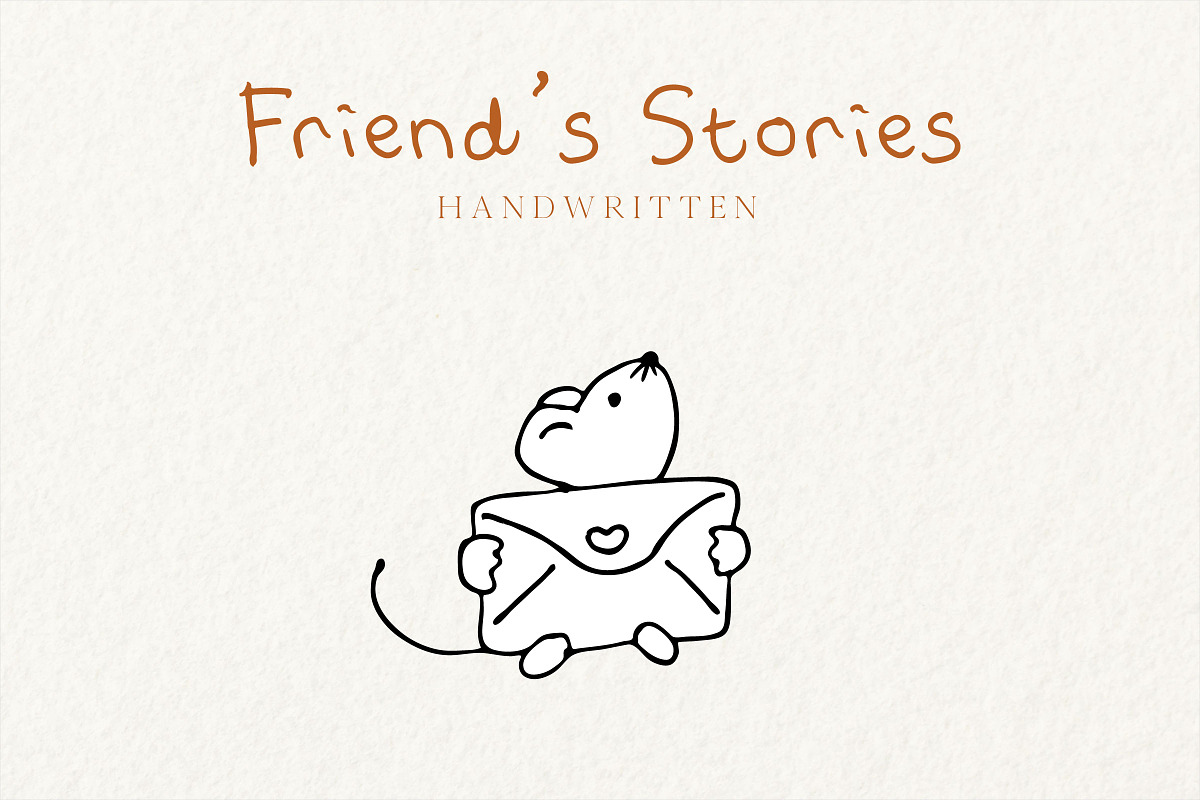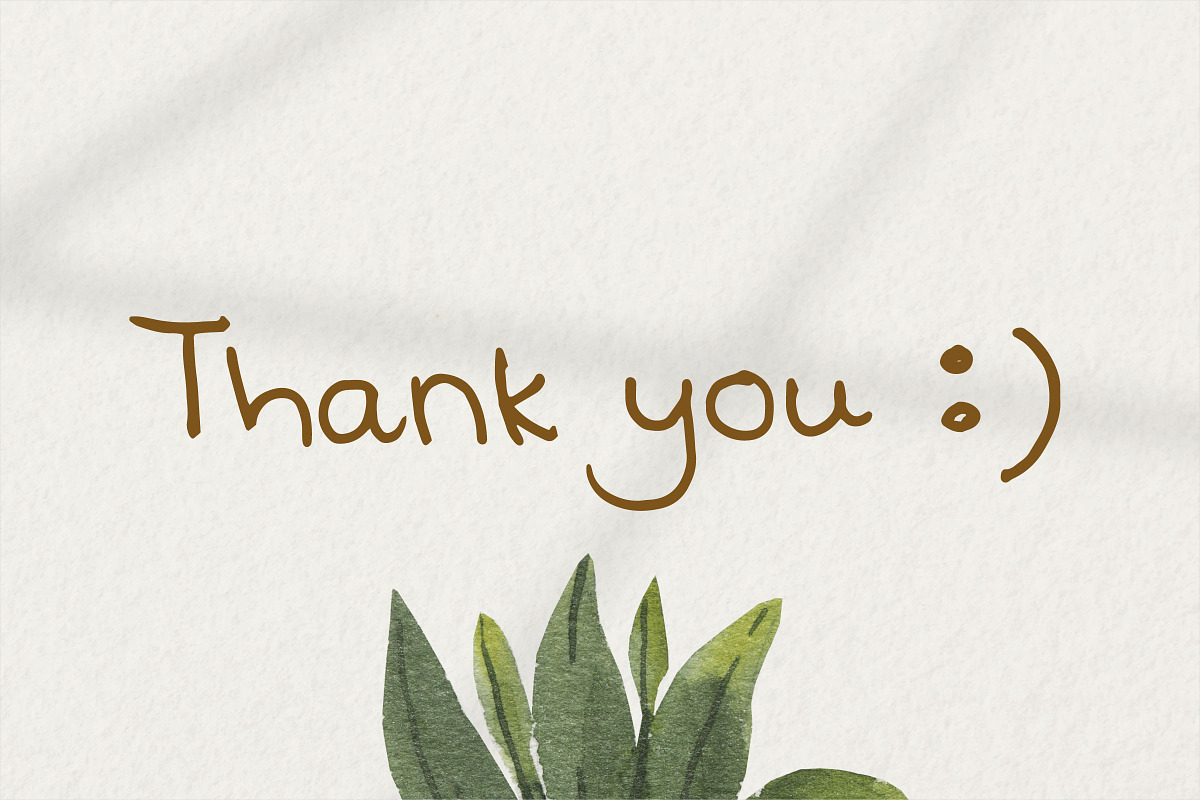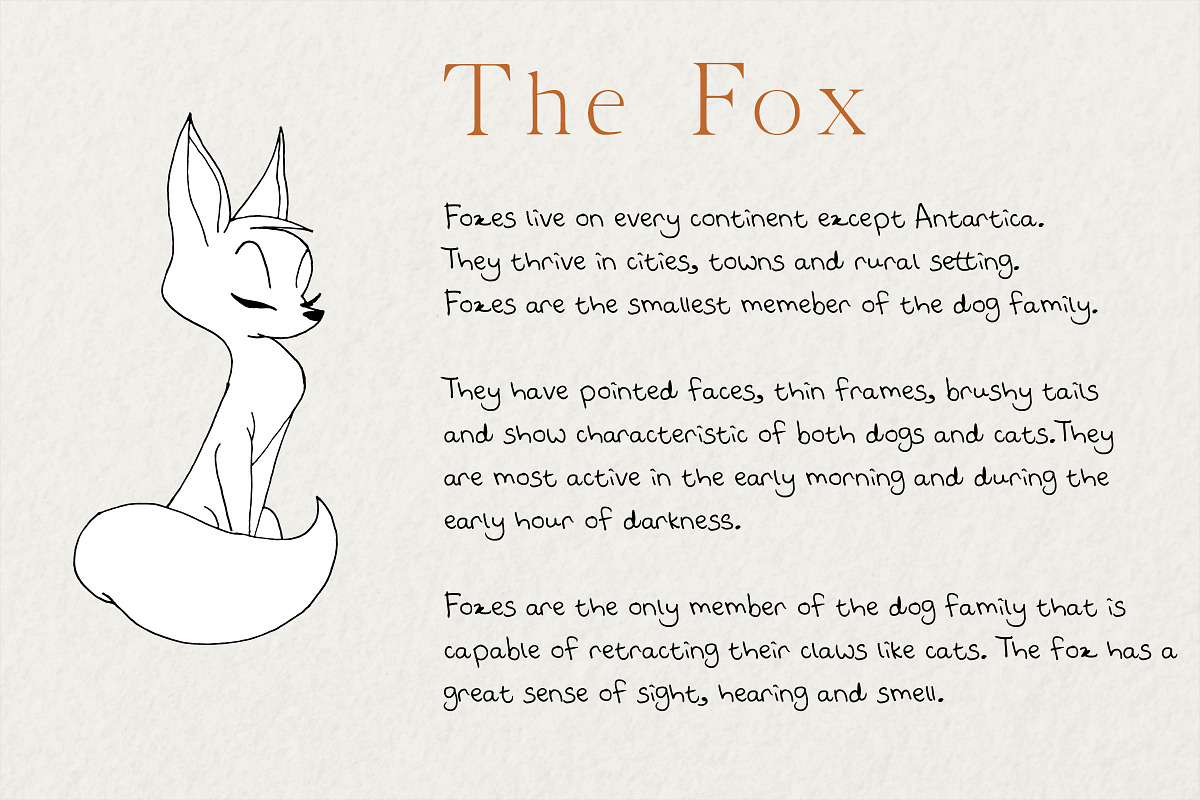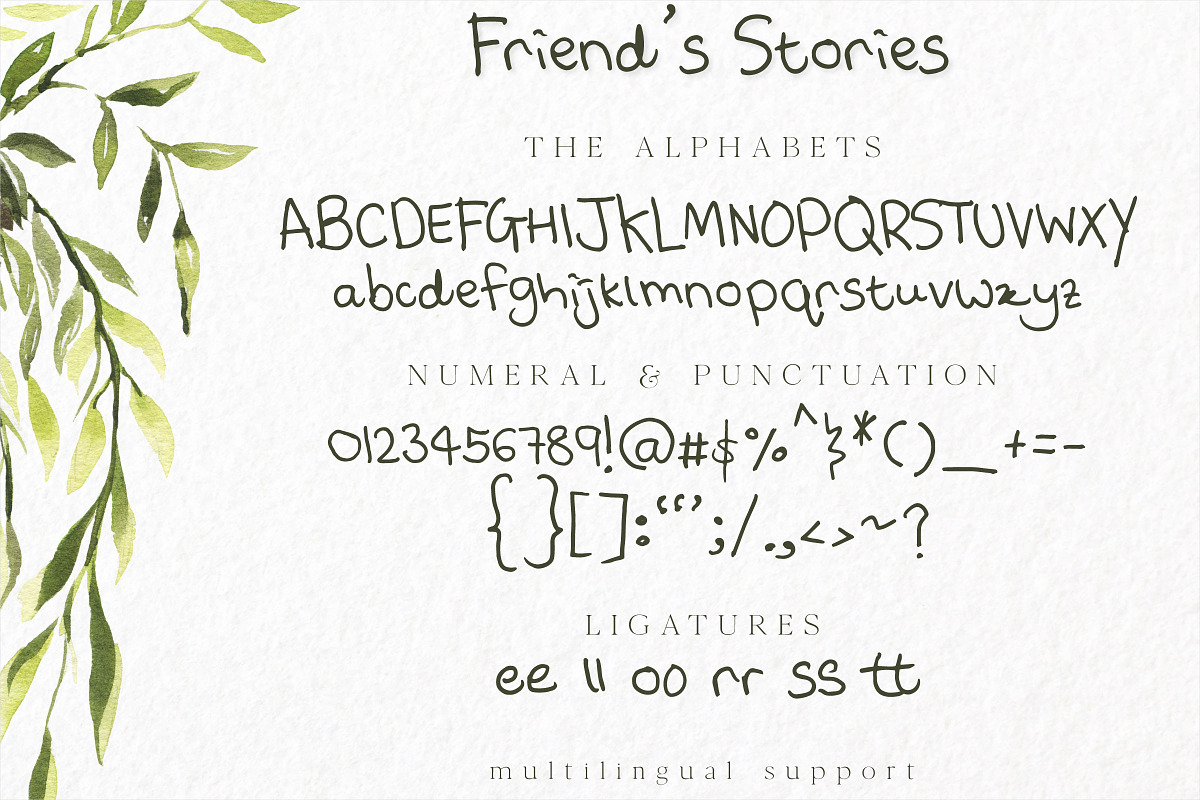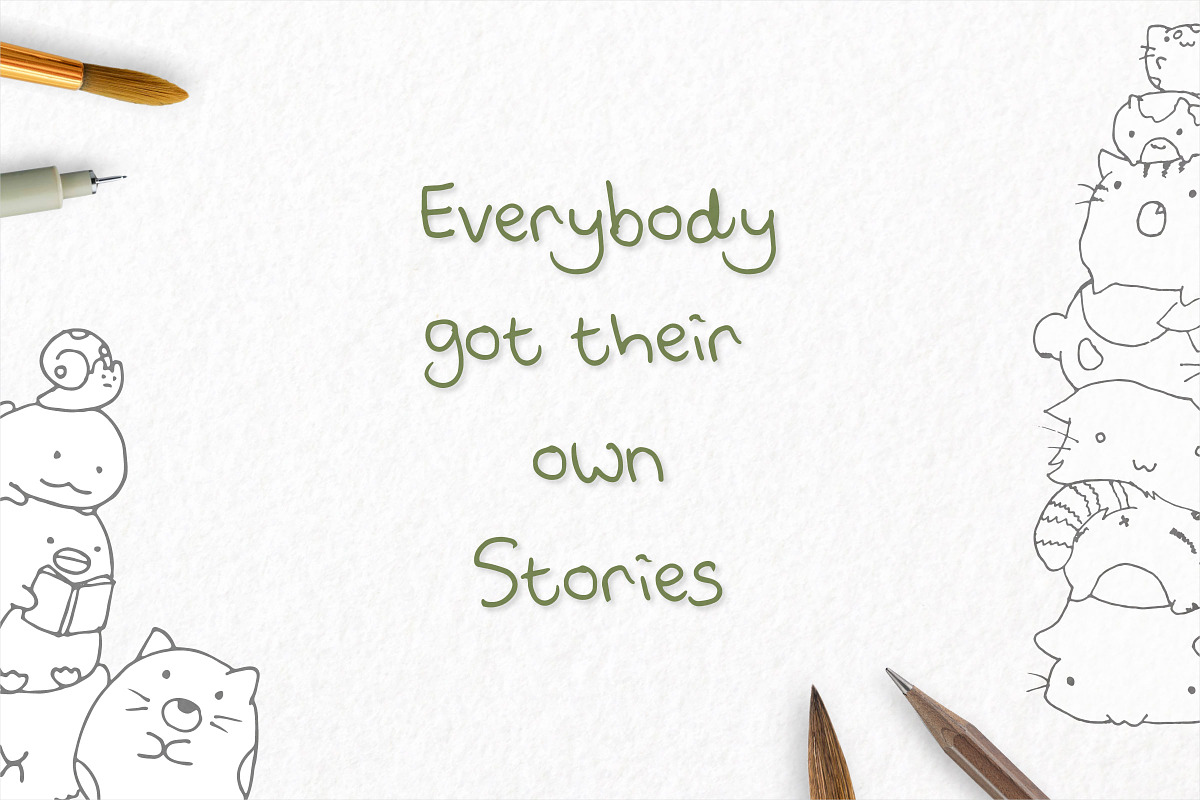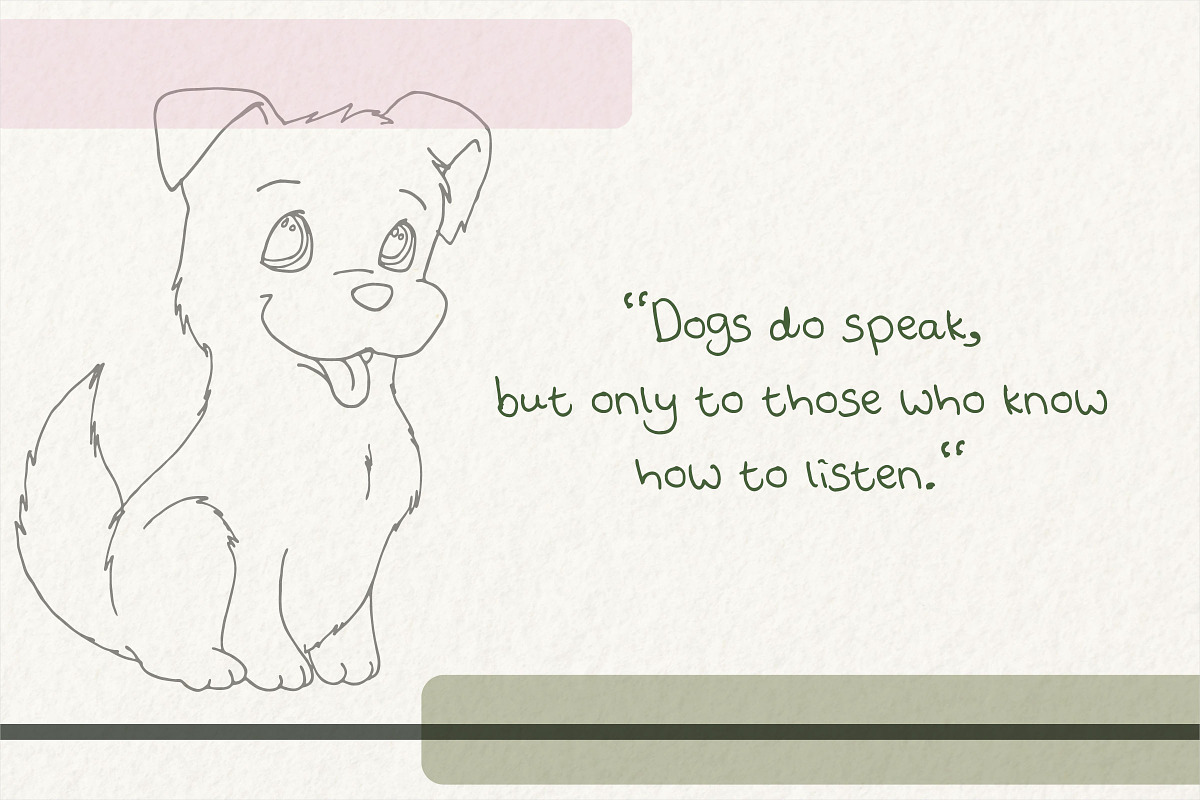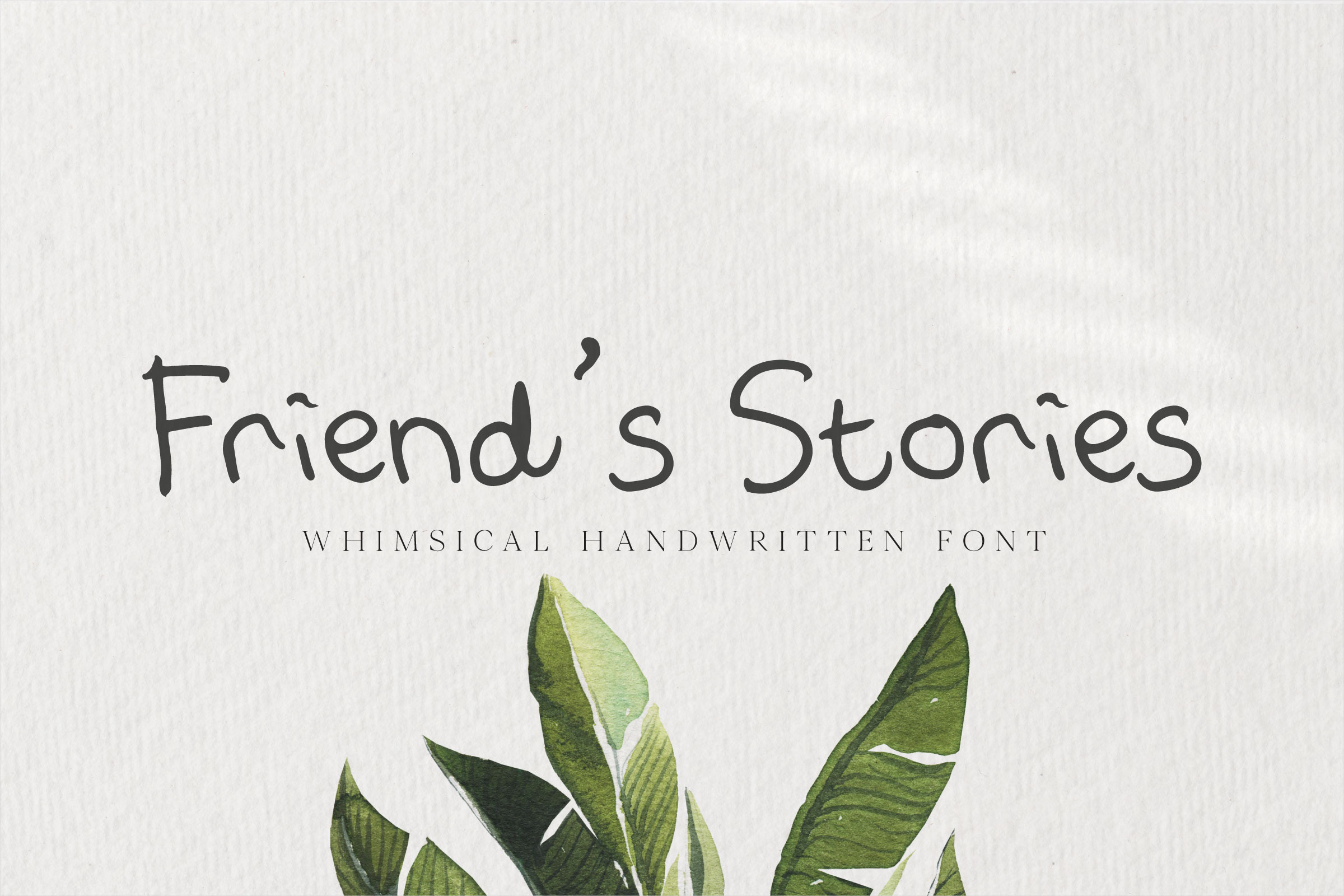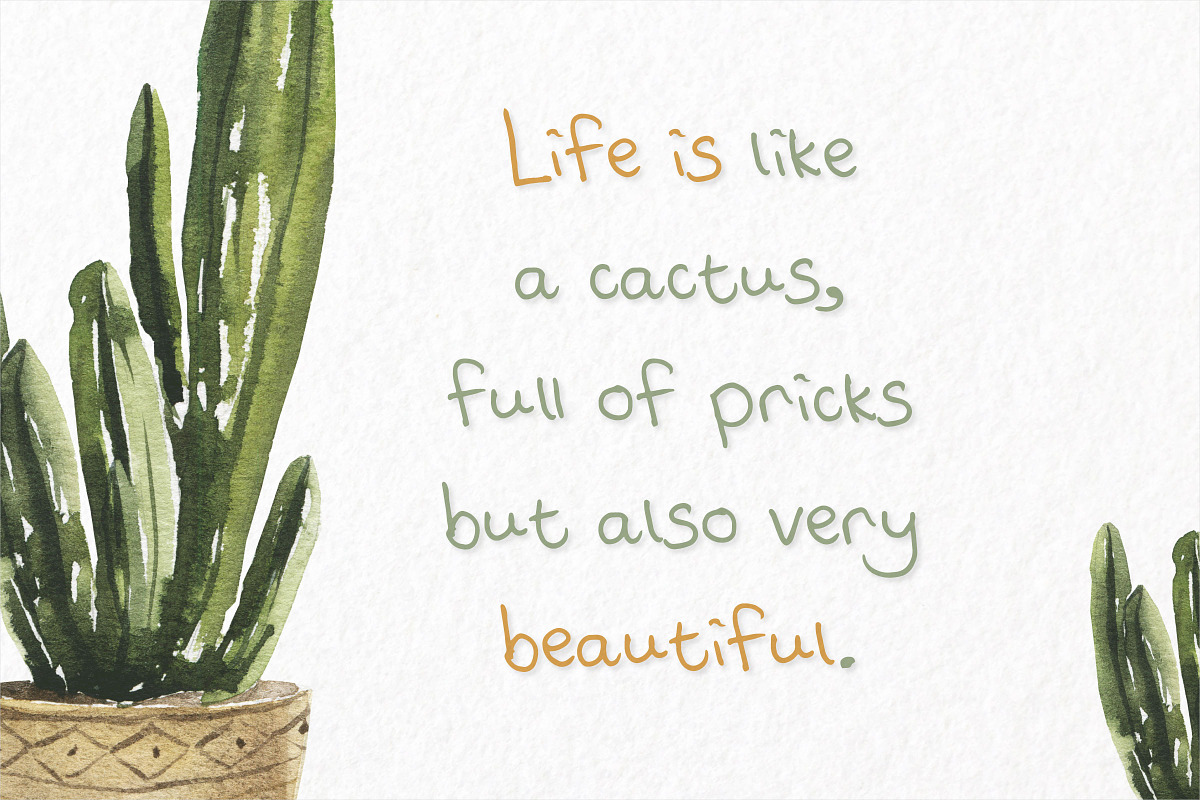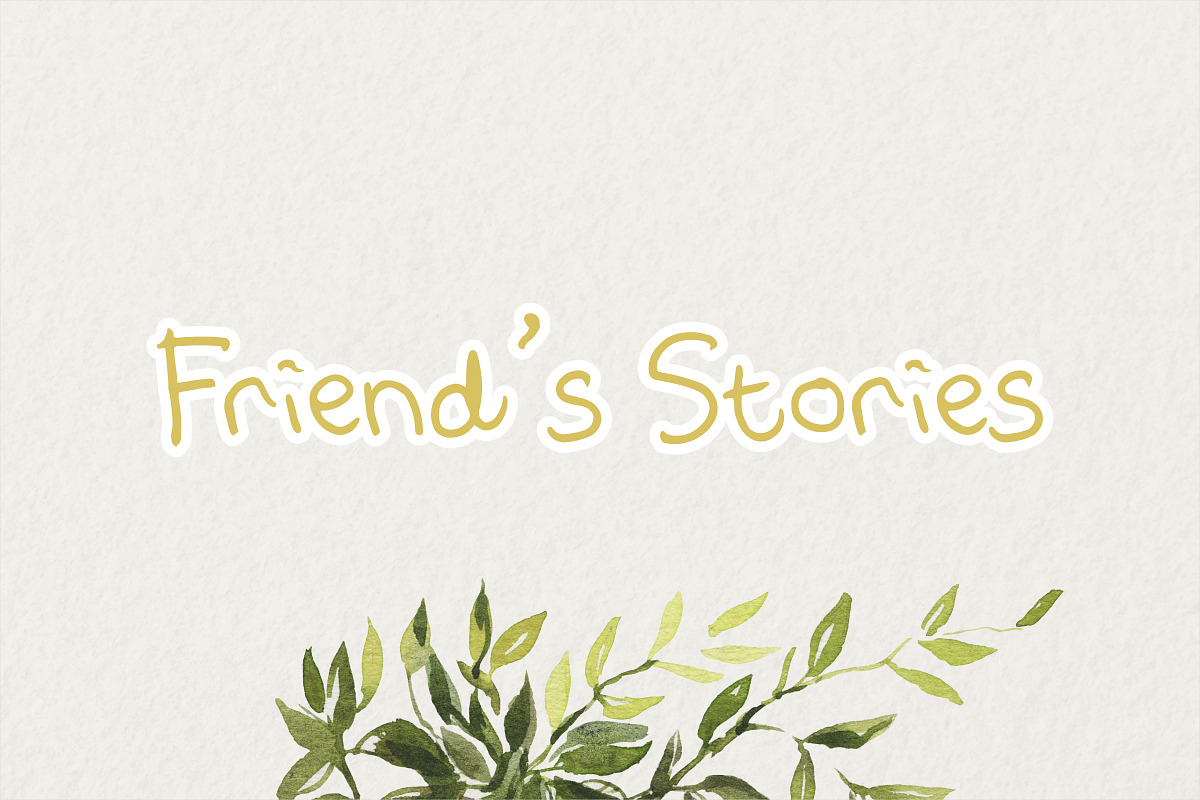
Friend's Stories Font
Everybody has their own story!
This font is inspired from my friend's quirky handwriting. It's such a cute hand-written style, so I'm planning to preserved it forever in the Internet. I hope you find this font useful for your project.
Perfect for branding, paragraph text, social media, product design, stationery and advertising
Multilingual Support is included for the following languages: Cornish, Danish, English, Estonian, Faroese, Filipino, Finnish, French, Friulian, Galician, German (Switzerland), Gusii, Icelandic, Indonesian, Irish, Italian, Kabuverdianu, Kalenjin, Kinyarwanda, Luo, Luxembourgish,Norwegian Bokmål, Norwegian Nynorsk, Portuguese, Roman, Scottish Gaelic, Spanish, Swedish, Swiss German.